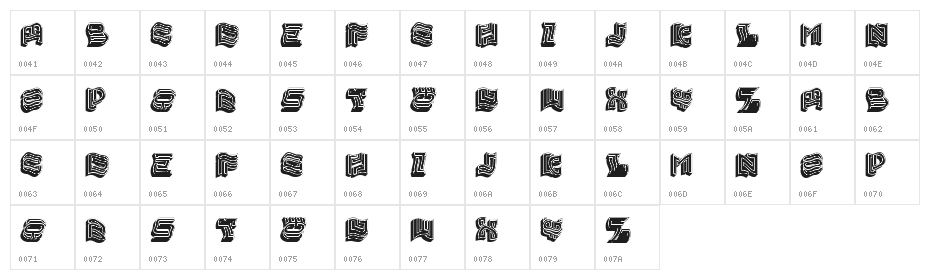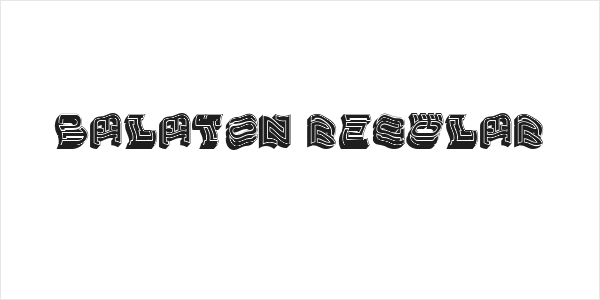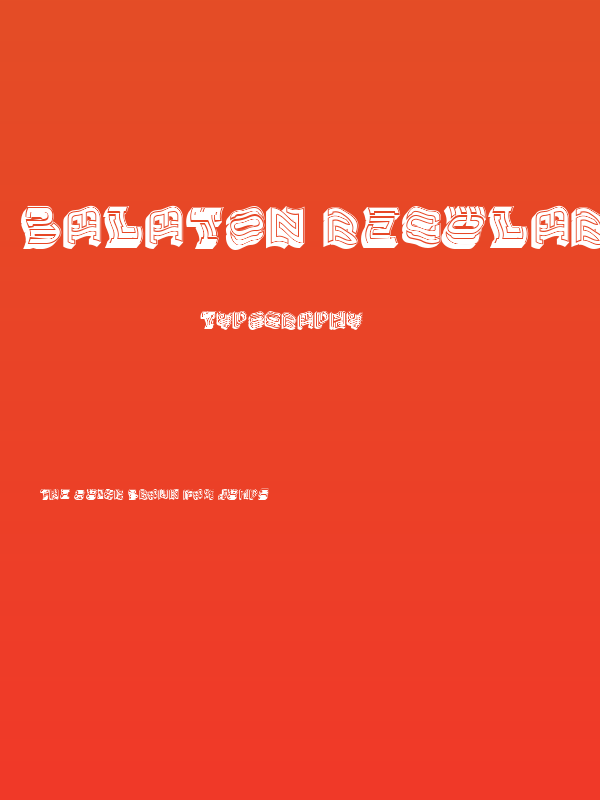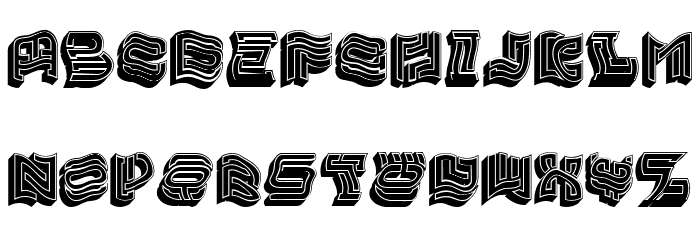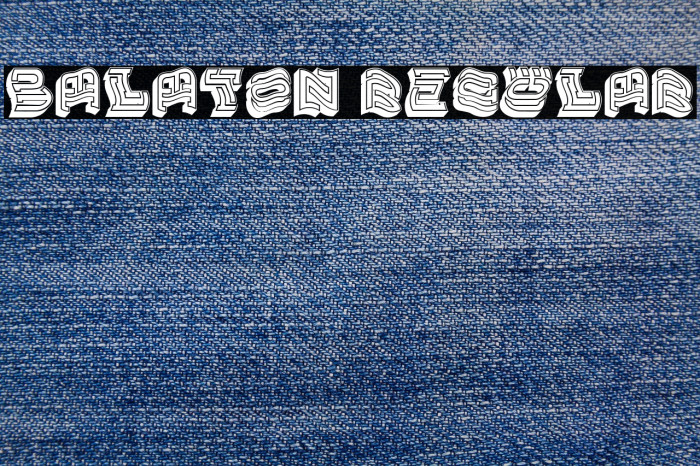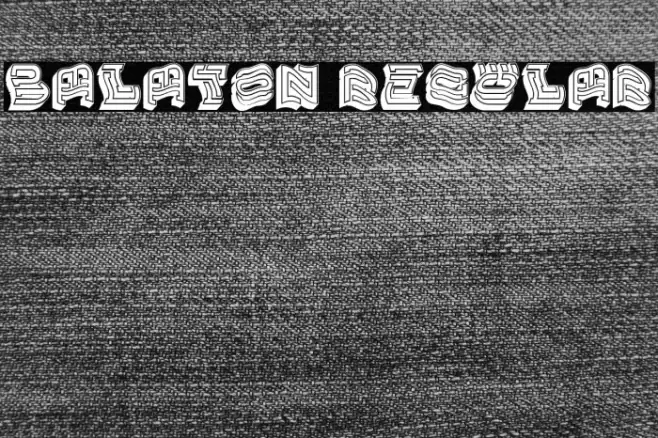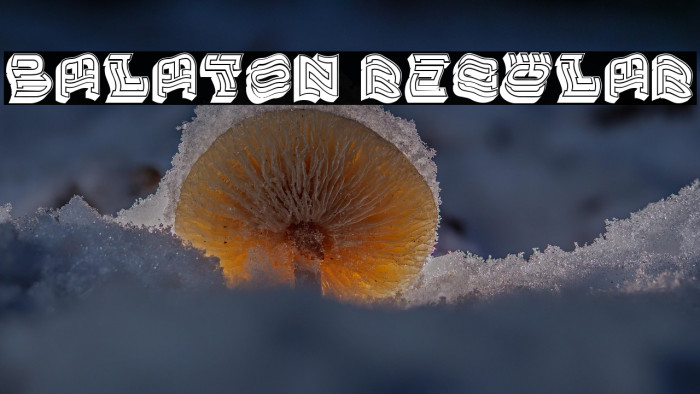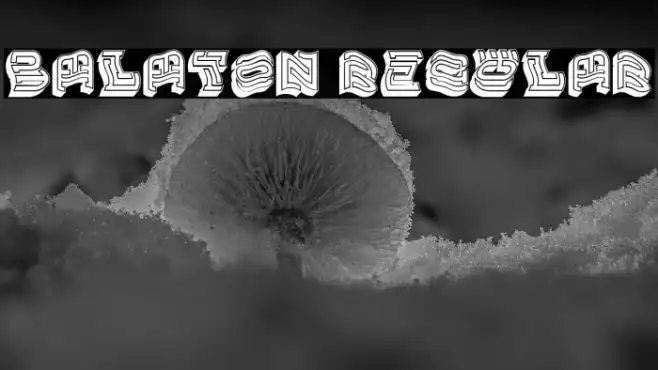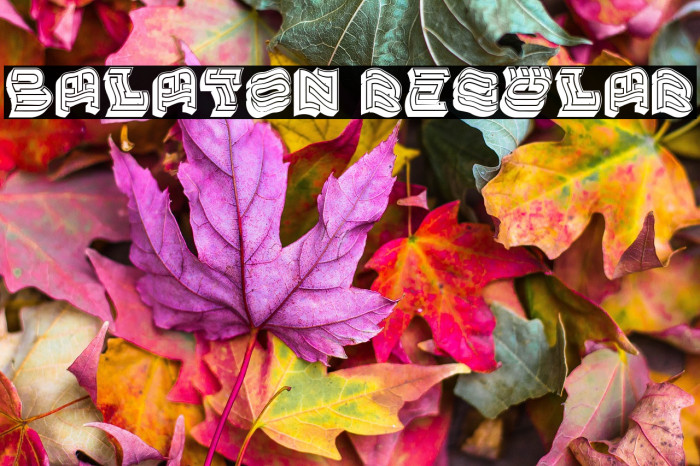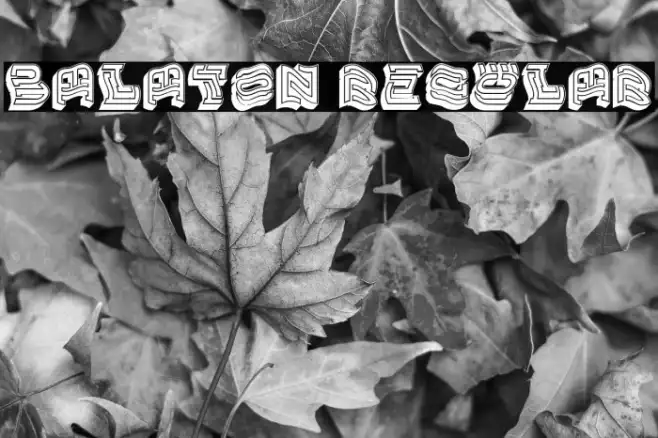
Balaton Regular Font
Balaton Regular Description
This font features a bold, decorative style with a unique, layered appearance. Each character is composed of multiple lines that create a sense of depth and dimension. The design is intricate, with a geometric influence that gives it a modern and artistic flair. The uppercase letters are particularly striking, with sharp angles and a strong presence. This font is ideal for projects that require a standout, eye-catching typeface. Its complex design makes it suitable for creative and artistic applications, where the font itself becomes a focal point.
| Proposed Projects | Ideal for posters, album covers, branding, and artistic projects. |